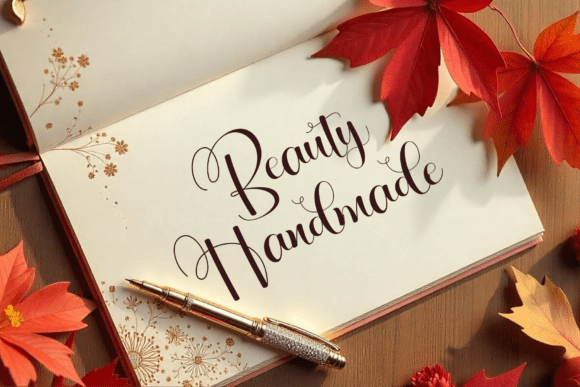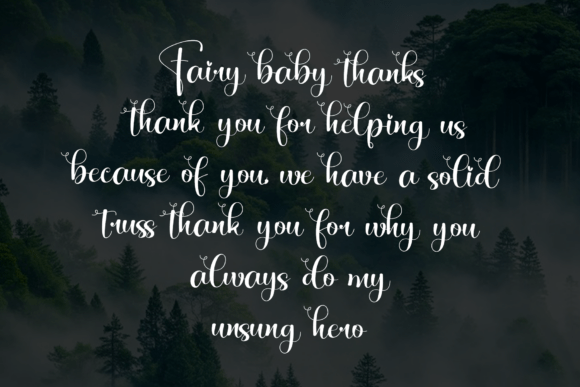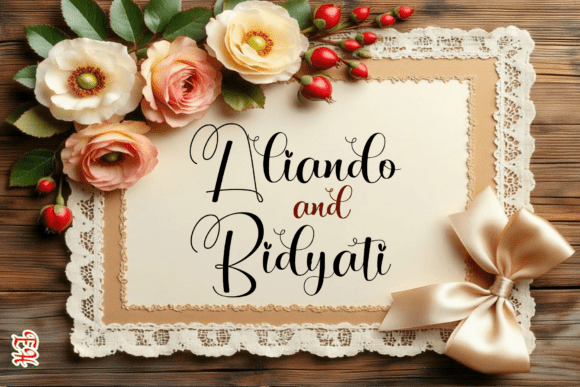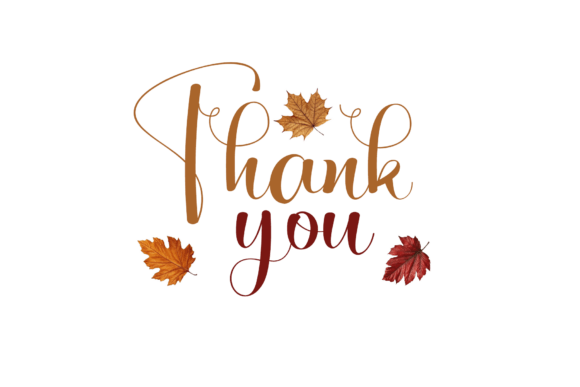
The Magic of Autumn Hunting Font: A Designer’s Delight
I’ll never forget the design project that led me to discover the stunning Autumn Hunting font. I was working on a luxury brand campaign, tasked with creating an invitation for an exclusive gala. The goal was to evoke opulence and sophistication, but I was struggling to find the perfect font to match the client’s high-end vision. That’s when I stumbled upon Autumn Hunting, and it was love at first sight! 💫
Autumn Hunting font is a true showstopper, with its high-contrast script and dramatic, sweeping ascenders and descenders. Here are the things I love about this font:
- ✨ Elegant, luxurious feel that’s perfect for high-end branding and invitations
- ✅ High legibility, even over complex backgrounds, thanks to its significant weight in downstrokes
- 💫 Delicate loops and curls that add movement and grace to any design
While Autumn Hunting is an amazing font, there are a few quirks to be aware of:
- 🤔 It may not be the best choice for body text or long paragraphs, as its ornate nature can be overwhelming
- ⚠️ Some users have reported issues with kerning and spacing, particularly with certain character combinations
The Story Behind Autumn Hunting Font
Autumn Hunting font was designed by a renowned typographer who drew inspiration from traditional calligraphy and luxury stationery. The font’s creator wanted to craft a typeface that would evoke the feeling of opulence and sophistication, while still being legible and versatile. The result is a stunning script that has captured the hearts of designers and crafters alike.
| Font Name | Autumn Hunting Font |
| Author | Sansana |
| What is the best use for Autumn Hunting font? | Autumn Hunting font is ideal for high-end branding, invitations, luxury packaging, and other design projects that require an elegant, sophisticated look. |
| Is Autumn Hunting font suitable for body text? | No, Autumn Hunting font is not recommended for body text or long paragraphs, as its ornate nature can be overwhelming. |